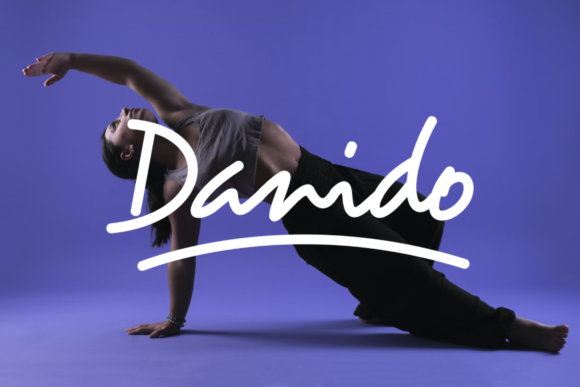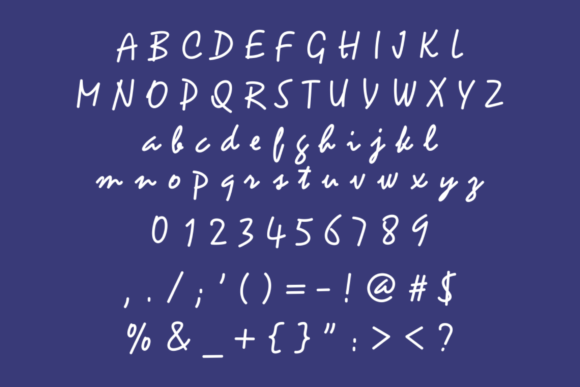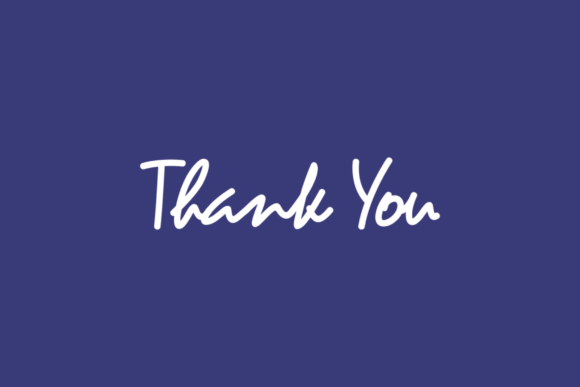
Introduction to Malindo Font
Malindo is a casual and authentic script font.
The font is suitable for any branding project like logo, t-shirt printing, esport, and many more outstanding in a wide range of contexts.
Key Features of Malindo Font
Why Choose Malindo Font?